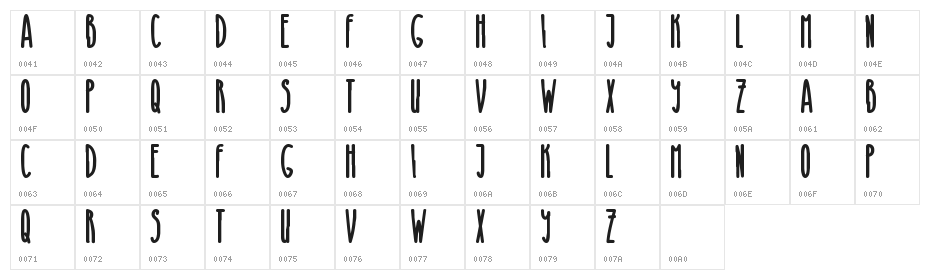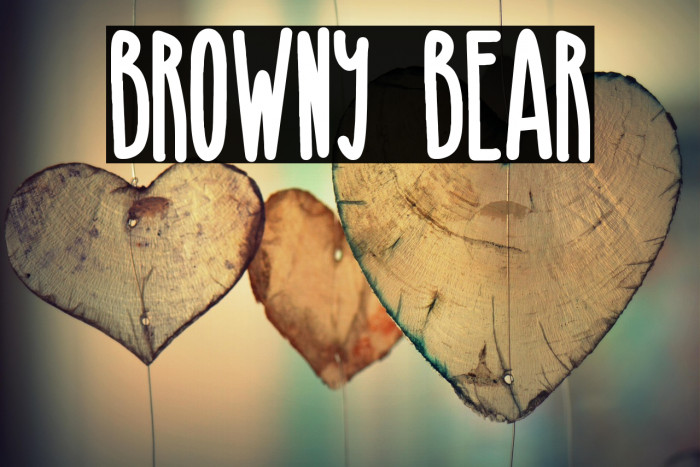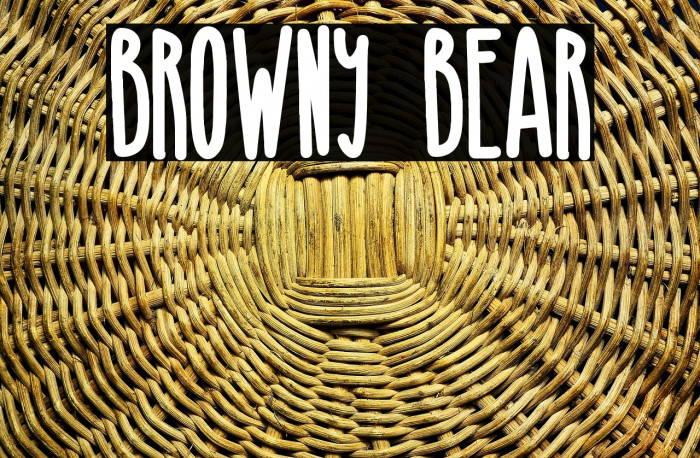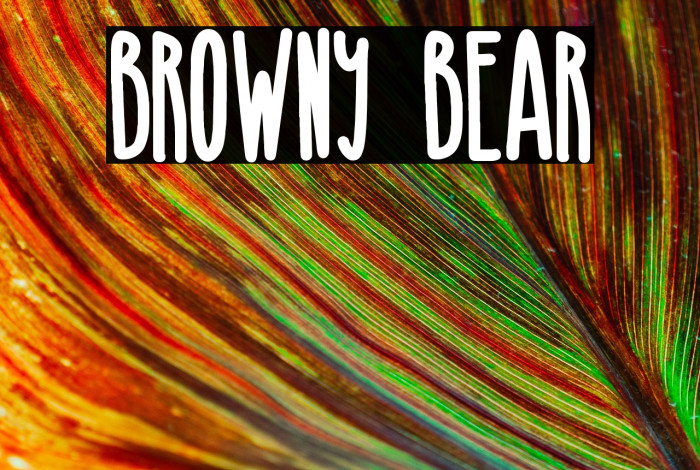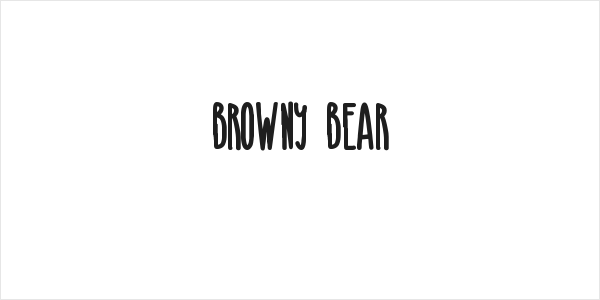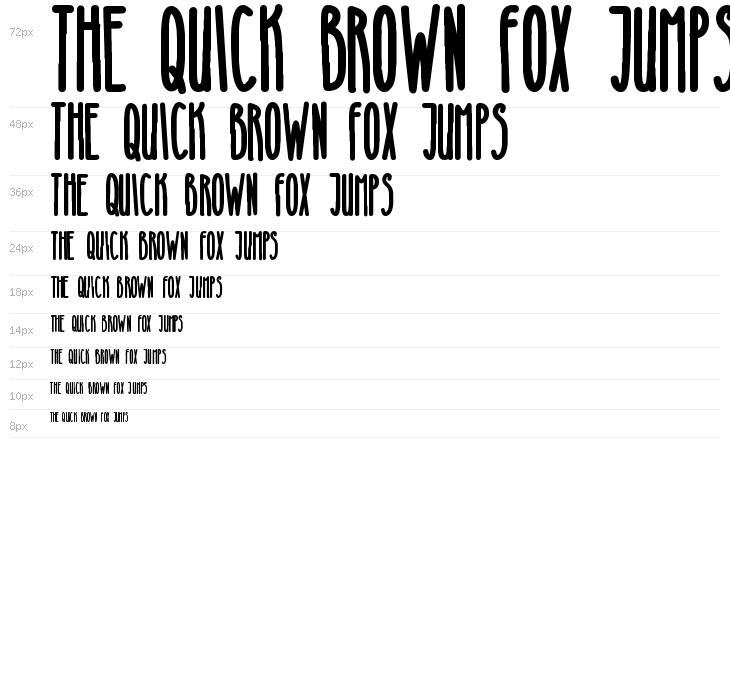
Browny Bear Font
This font features a playful and bold design with elongated, narrow characters that give it a distinctive, quirky appearance. The uppercase letters are tall and slightly curved, adding a sense of movement and energy. The lowercase letters maintain the same playful style, with consistent stroke widths that create a cohesive look. The numbers and special characters follow the same design principles, ensuring uniformity across all glyphs. This font's unique style makes it ideal for creative projects that require a fun and engaging visual element.
| Overall Style | Playful, Quirky |
| Proposed Projects | Ideal for children's books, playful branding, posters, and creative invitations. |